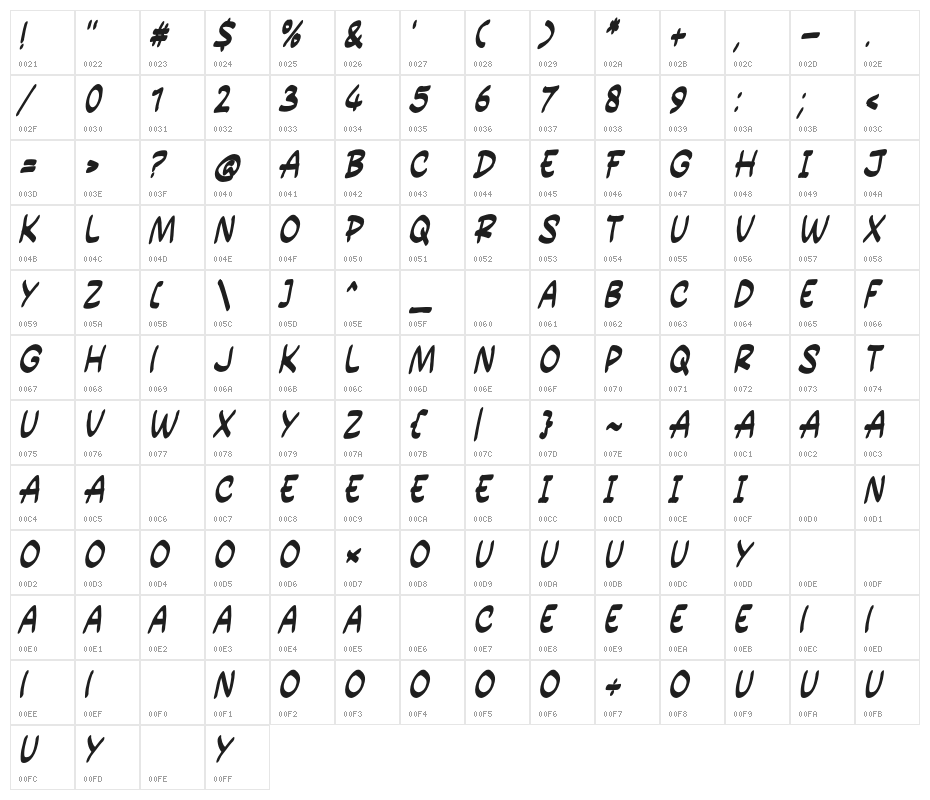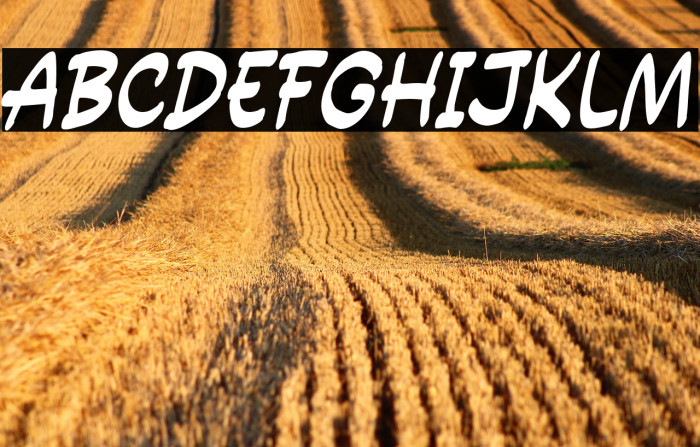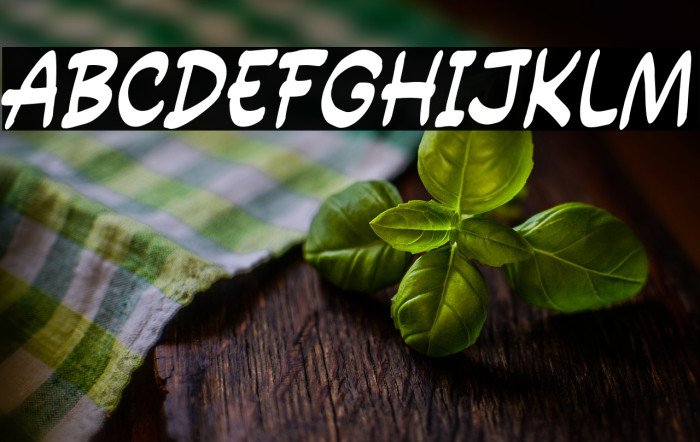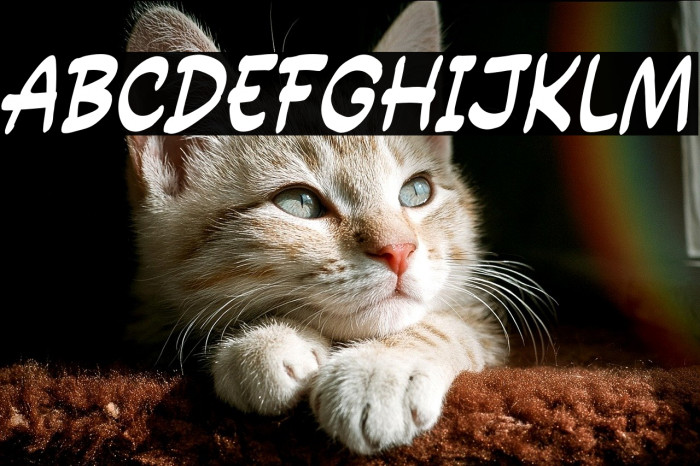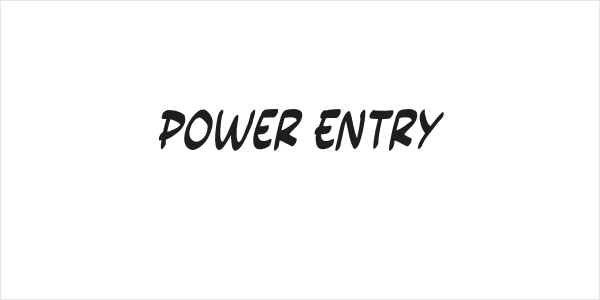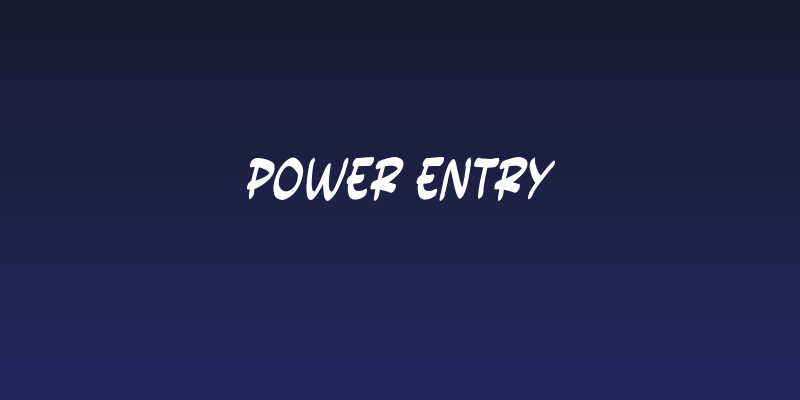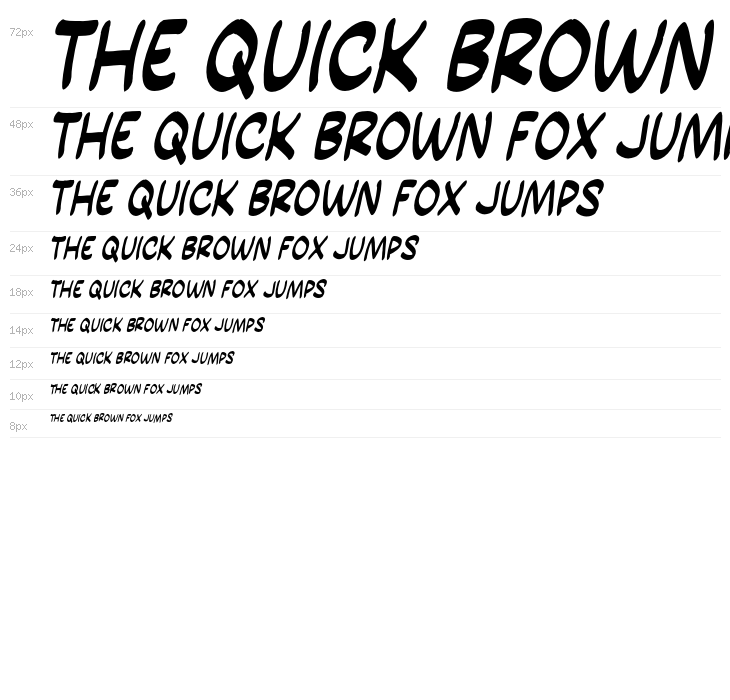
Power Entry Font
Power Entry Description
This font features a bold and dynamic script style, characterized by its fluid and energetic strokes. The letters are slightly slanted, giving a sense of motion and liveliness. The uppercase and lowercase letters maintain a consistent style, with rounded edges and a smooth flow between characters. The numerals and special characters are designed to match the overall aesthetic, ensuring a cohesive look across all text. This font's boldness and unique style make it stand out, suitable for projects that require a touch of personality and flair.
| Use Case | Logos, Headlines, Posters |
| Proposed Projects | Ideal for branding, posters, and creative projects that need a lively and personal touch. |